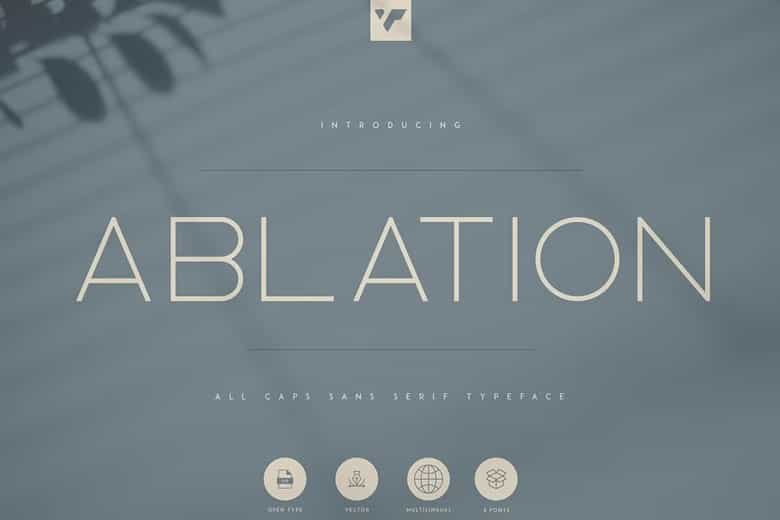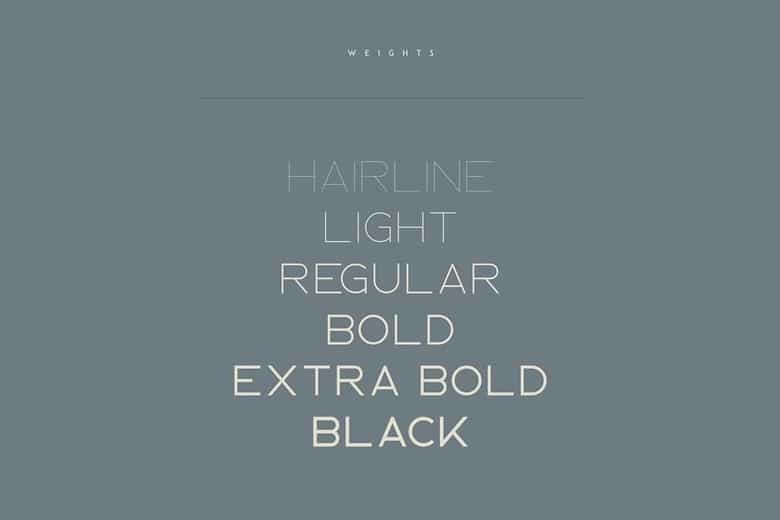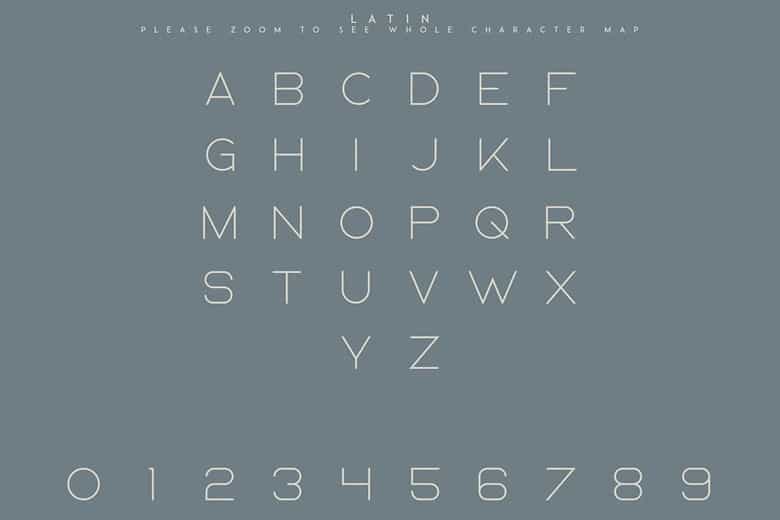
Ablation is a all caps sans serif font that comes with 6 weights to add magic to your next project. The languages supported are basic Latin and advanced Latin, basic Cyrillic and advanced Cyrillic. Highly flexible and suitable for use in both big and small sizes for texts.